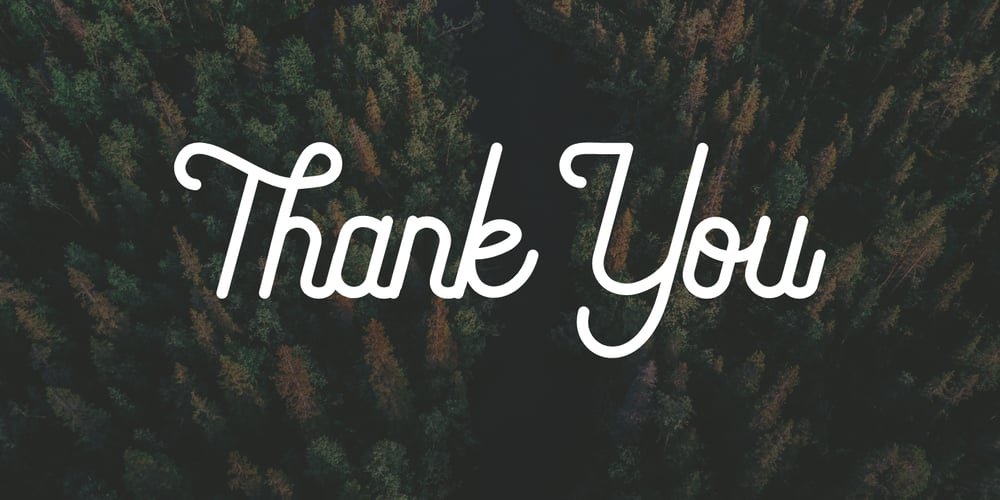
Speed Line Font Family was designed by Raditya Putra Pratama and published by Raditya Type. Speed Line contains 1 styles and family package options. If you are looking for a neat vintage font, Speed Line is a very appropriate choice. It can be applied for various purposes. This font is perfect for logotype, headline, apparels, quotes, posters, labels with vintage and exclusive feels. What’s included? 1. Uppercase and lowercase characters 2. Supports international languages 3. Features: Uppercase, Lowercase, numeral & punctuation, multilanguage, initials, ligatures, and trails 4. Accessible in the Adobe Illustrator Glyphs panel, or under Stylistic Alternates in the Adobe Photoshop OpenType menu, Adobe InDesign, Corel Draw, even work on Microsoft Word. 5. PUA Encoded Characters – Fully accessible without additional design software. Thanks You